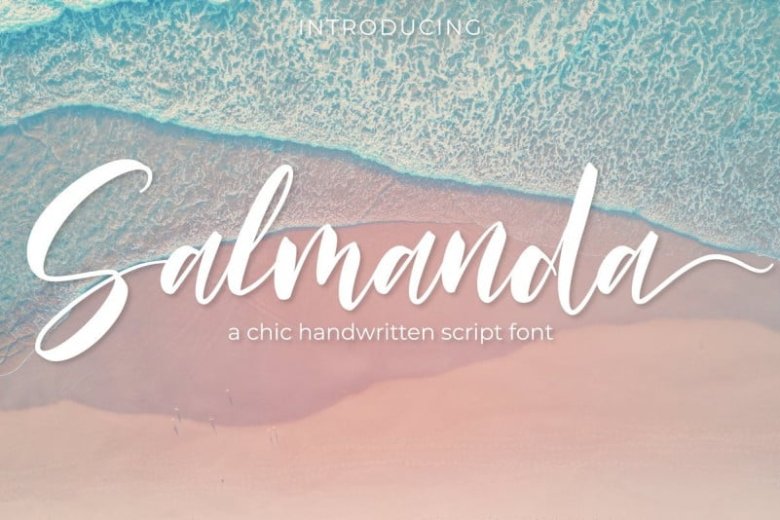
Salmanda Font
Salmanda Calligraphy Font is a modern calligraphic font, with a casual style and a lot of rhythm. It is designed with a pen with its characteristic ink discharges. With swash in the beginning and ending, Salmanda Script is guaranteed to make your text stand out – perfect for logos, printed quotes, invitations, cards, product packaging, headers and whatever your imagination holds.
Salmanda includes uppercase and lowercase letters, numerals, a large range of punctuation as well as multilingual support and ligatures. All lowercase letters include beginning and ending swashes, that makes the font look fabulous!